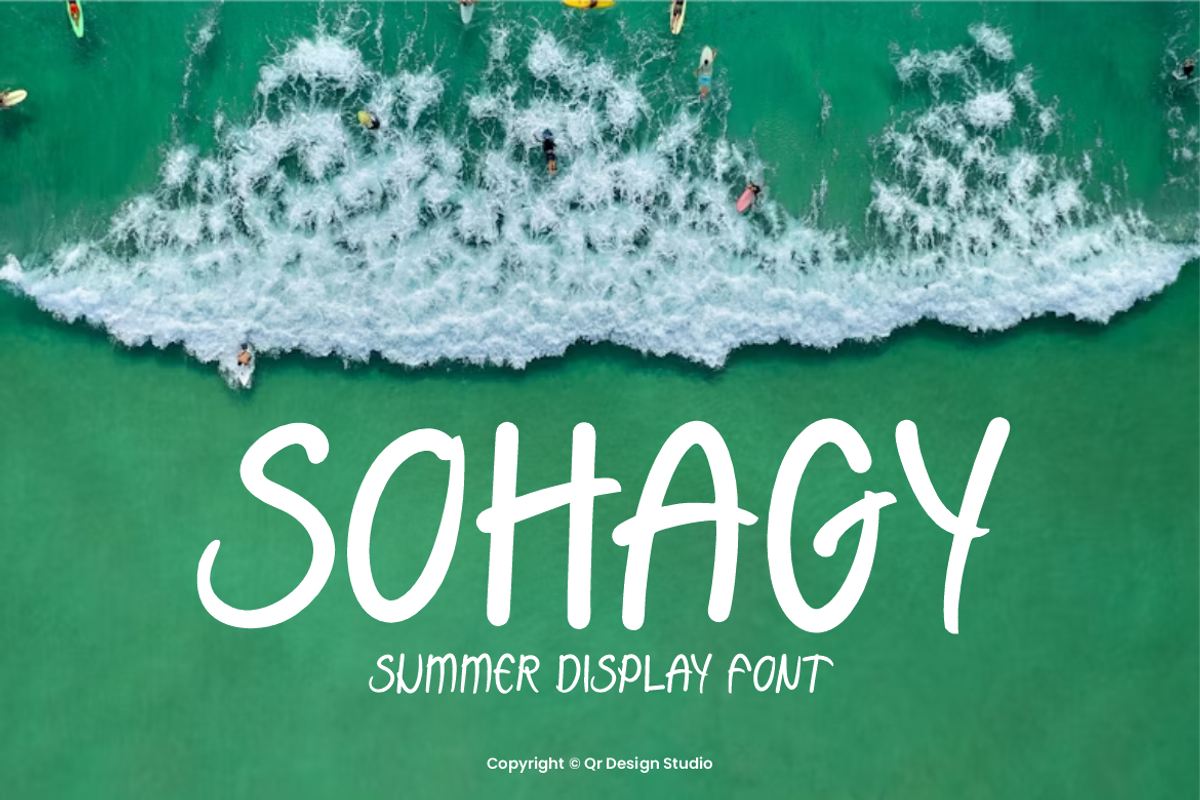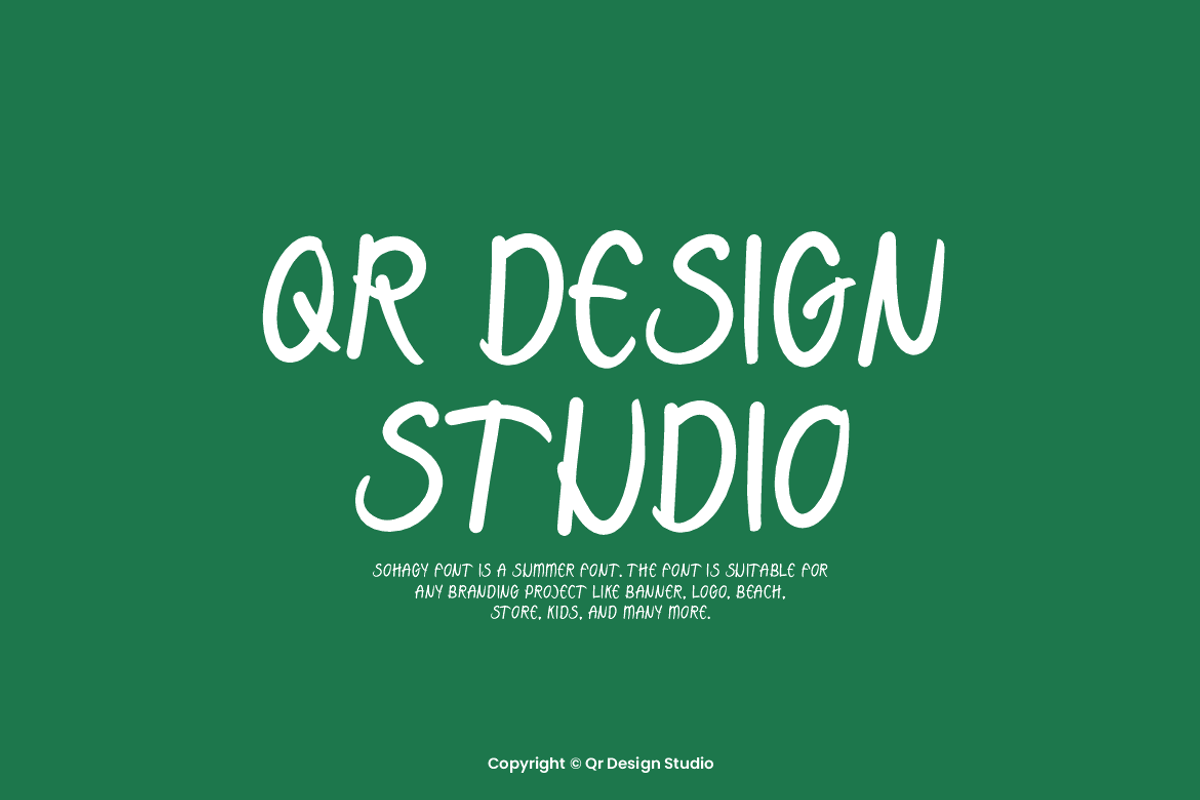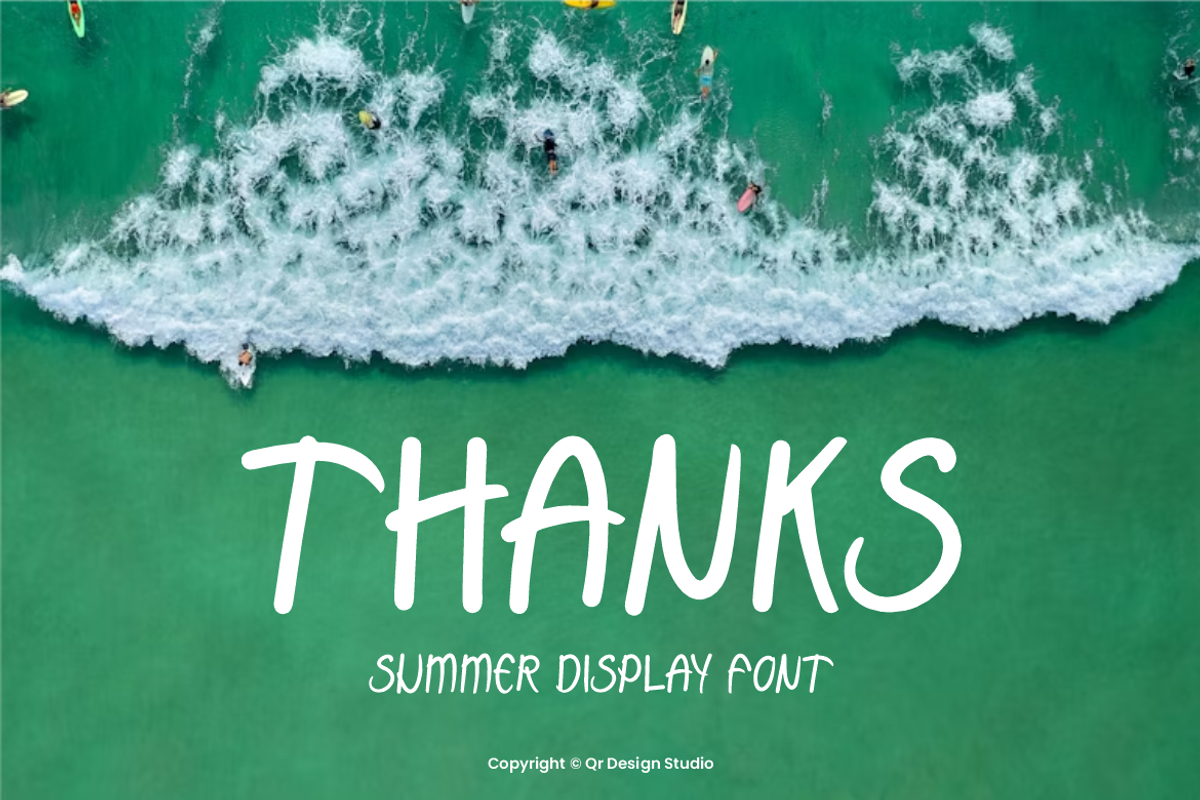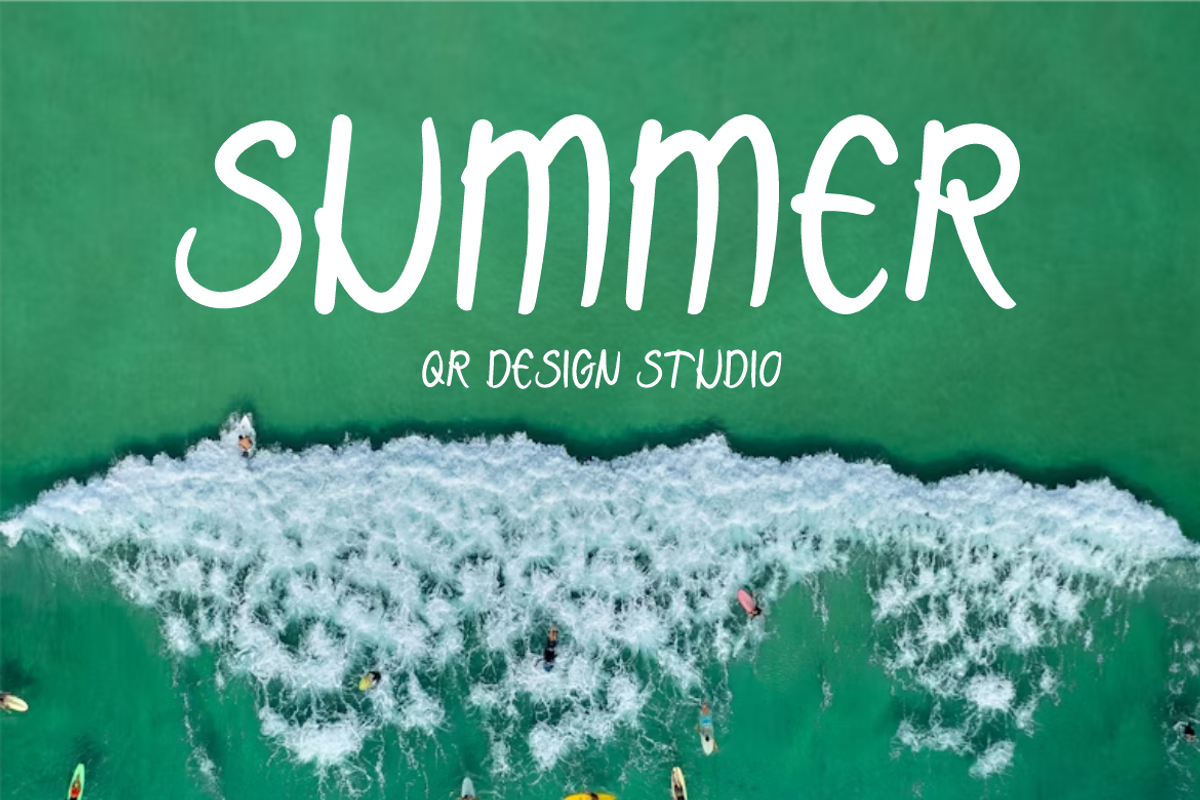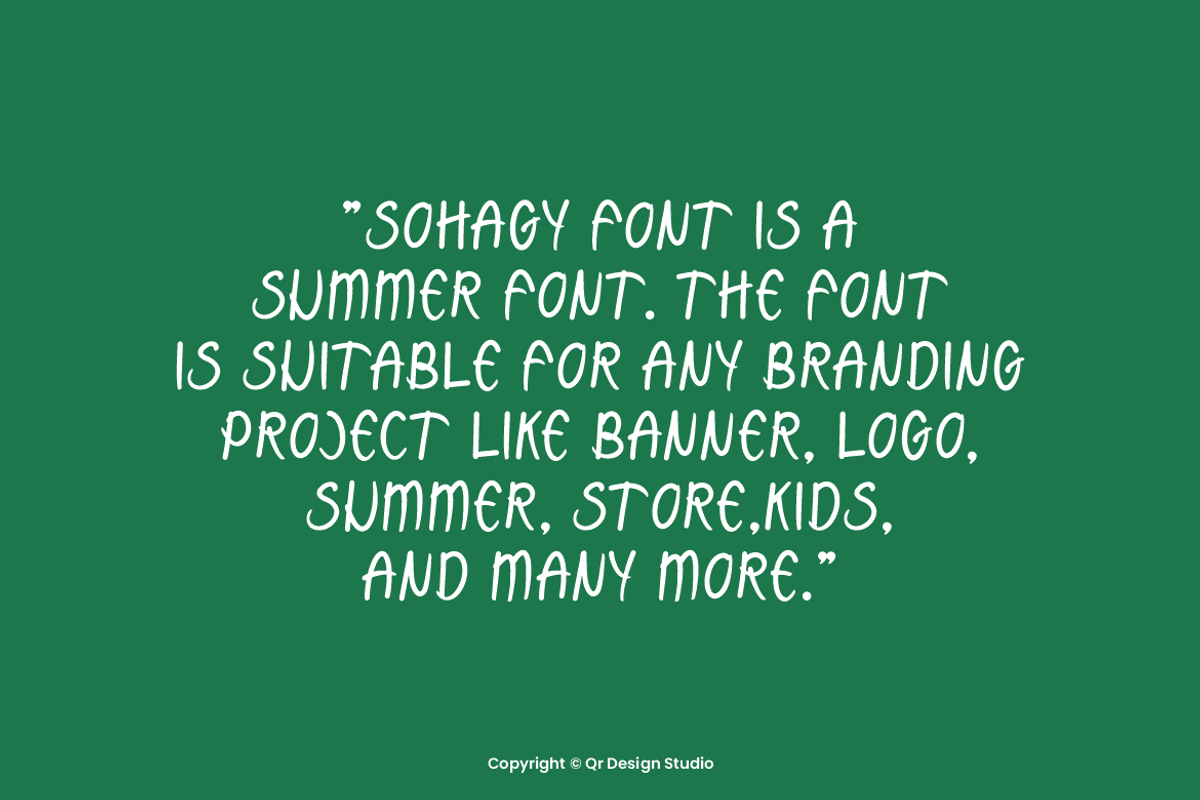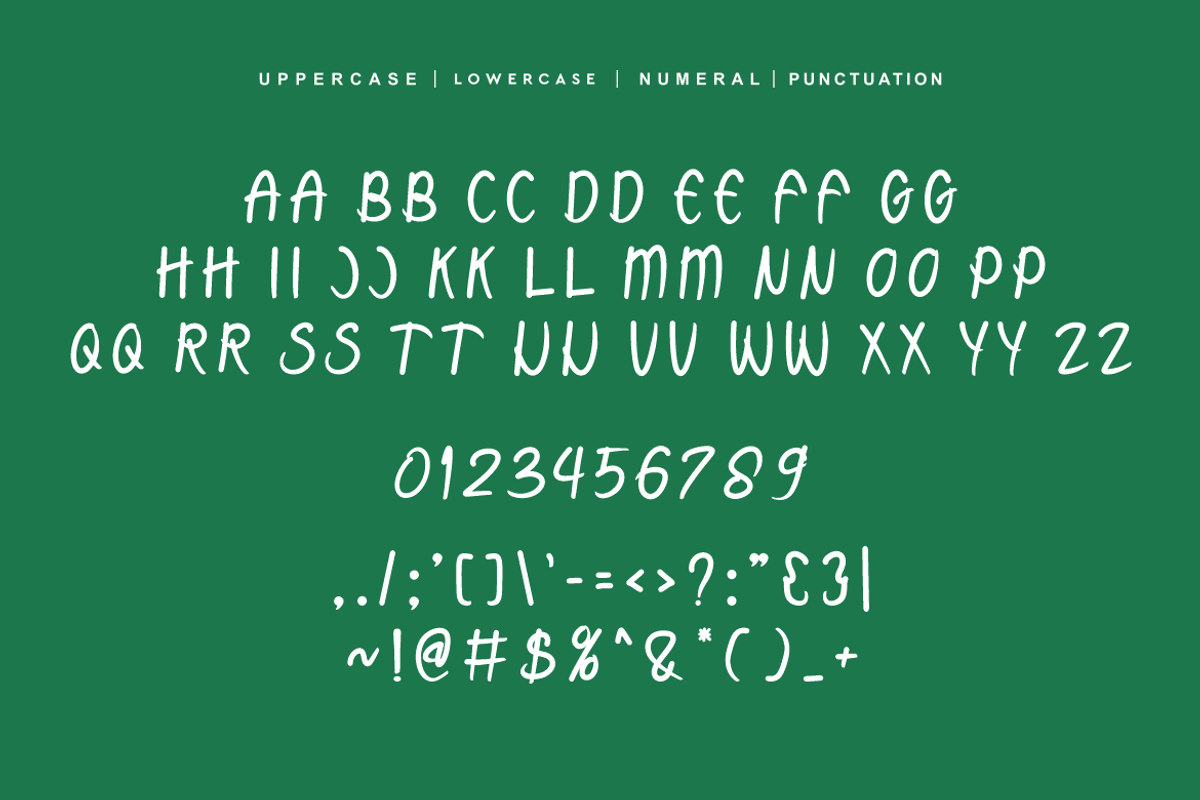
Sohagy - Summer Font
Sohagy Font is a bold summer authentic display font. The font is suitable for any branding project like poster, logo, kids, and many more. Outstanding in a wide range of contexts.